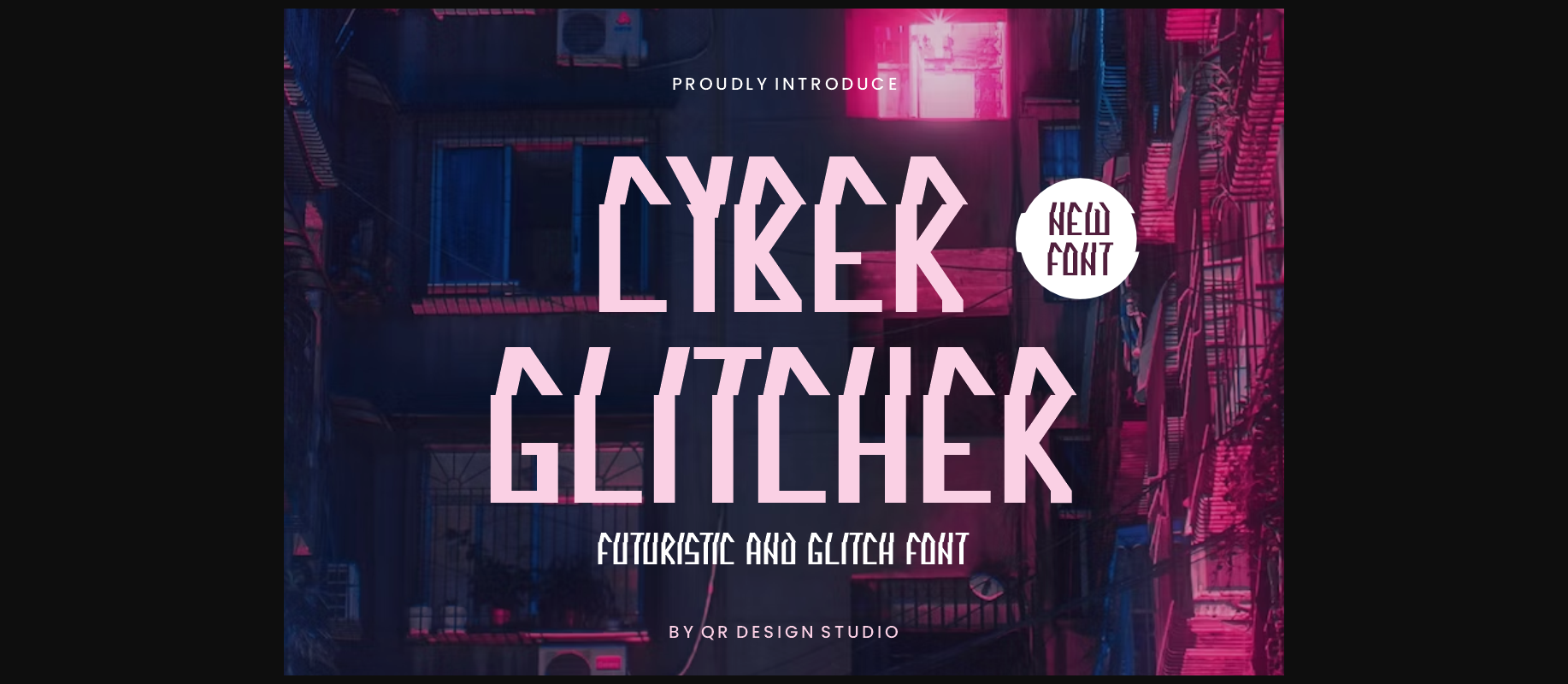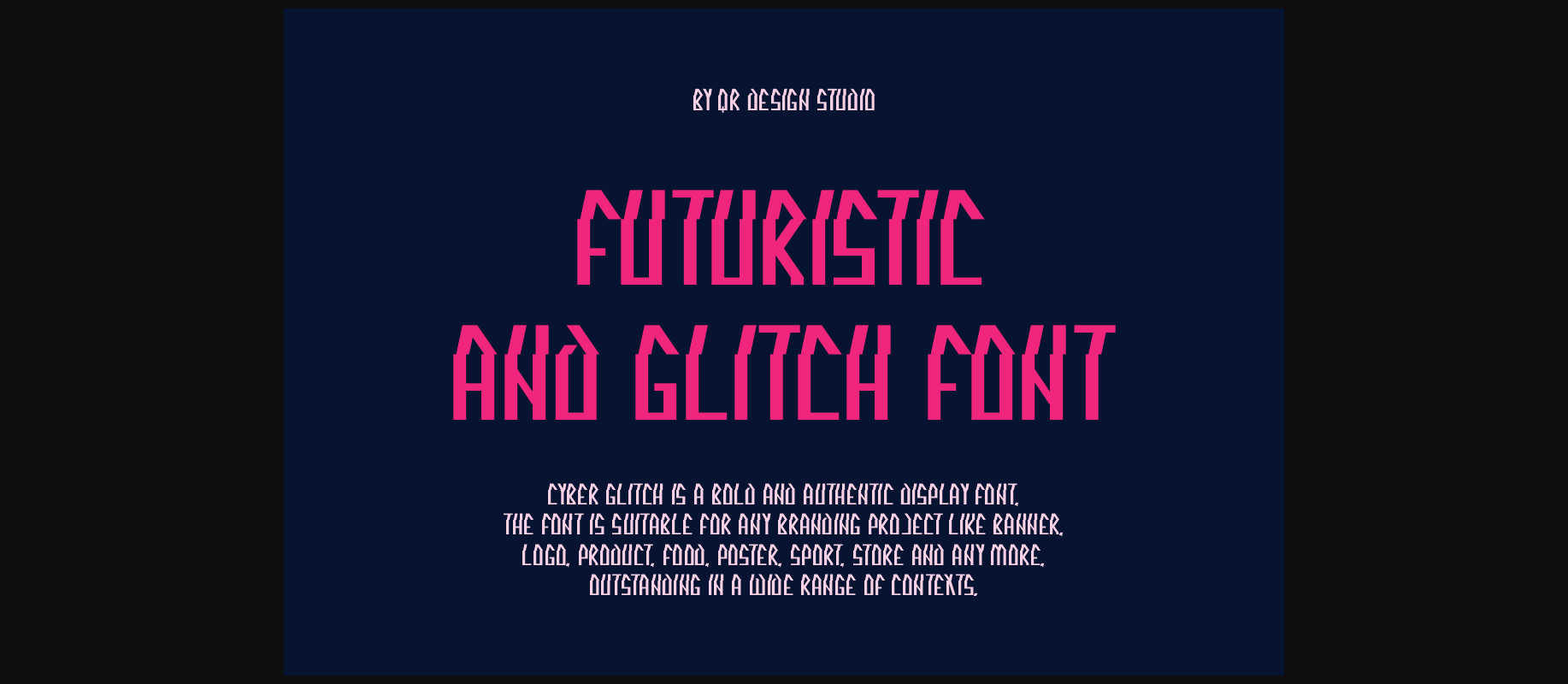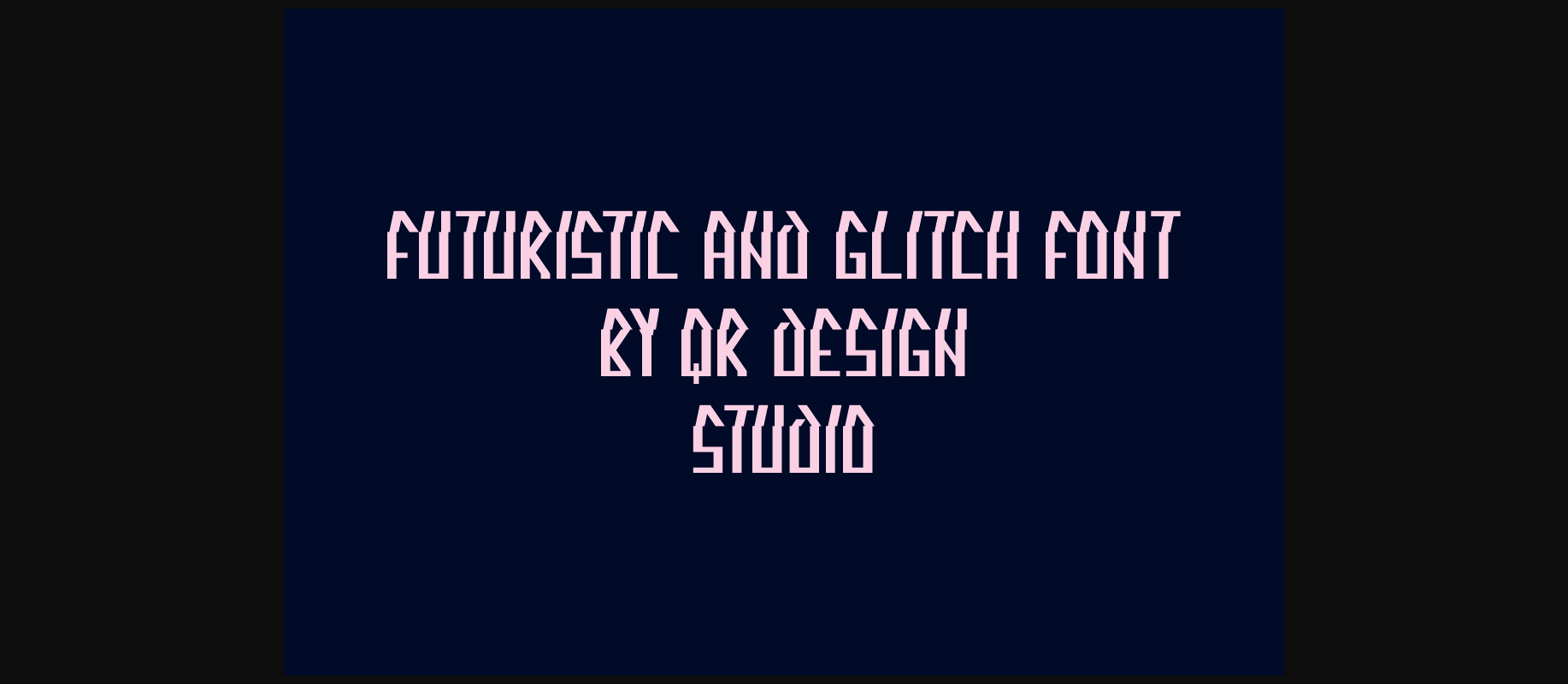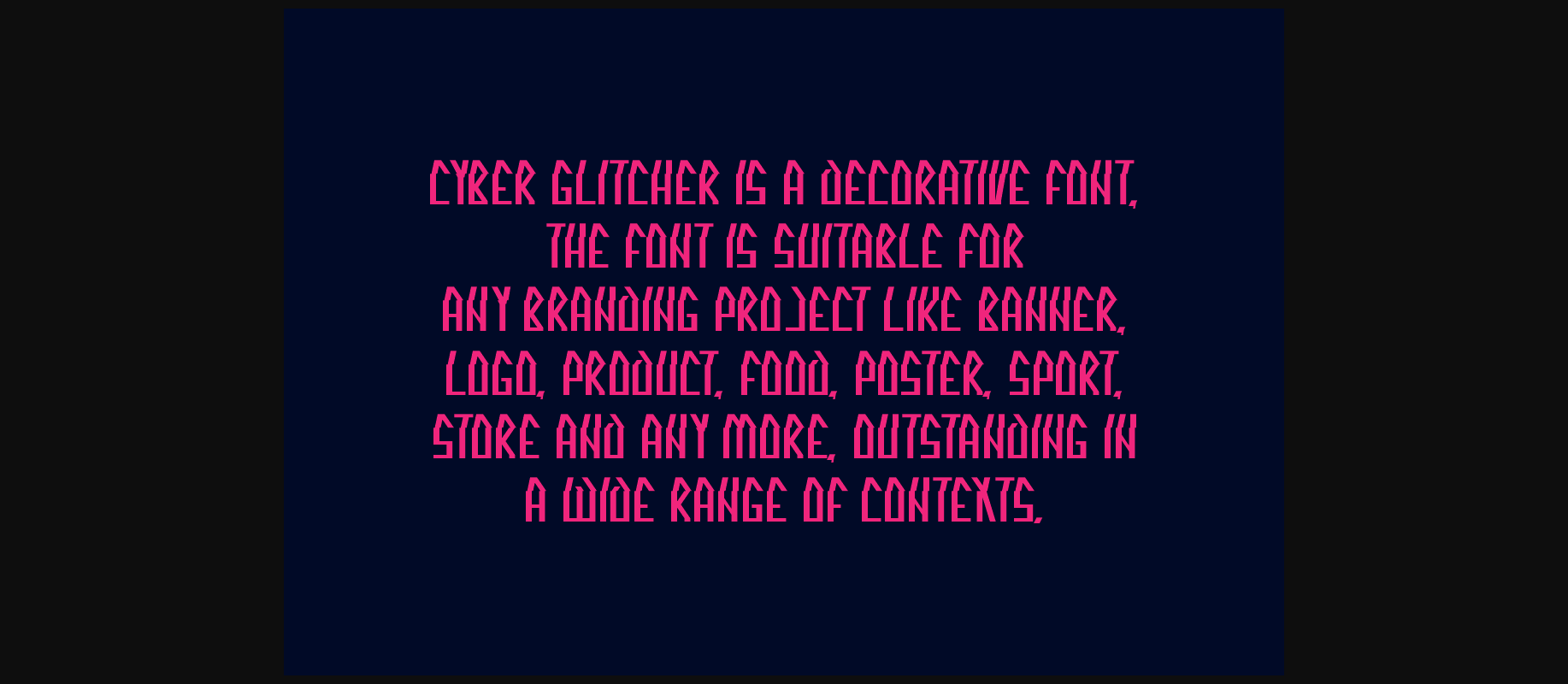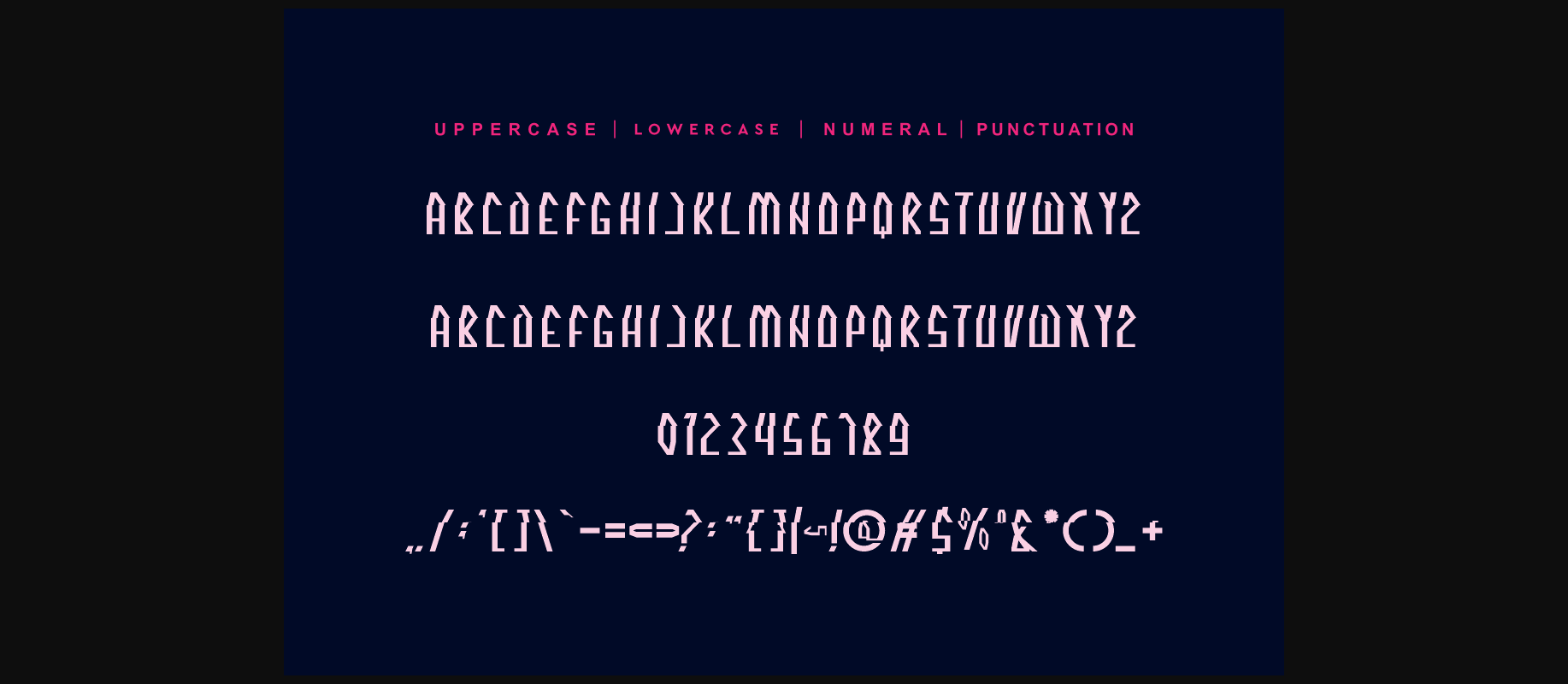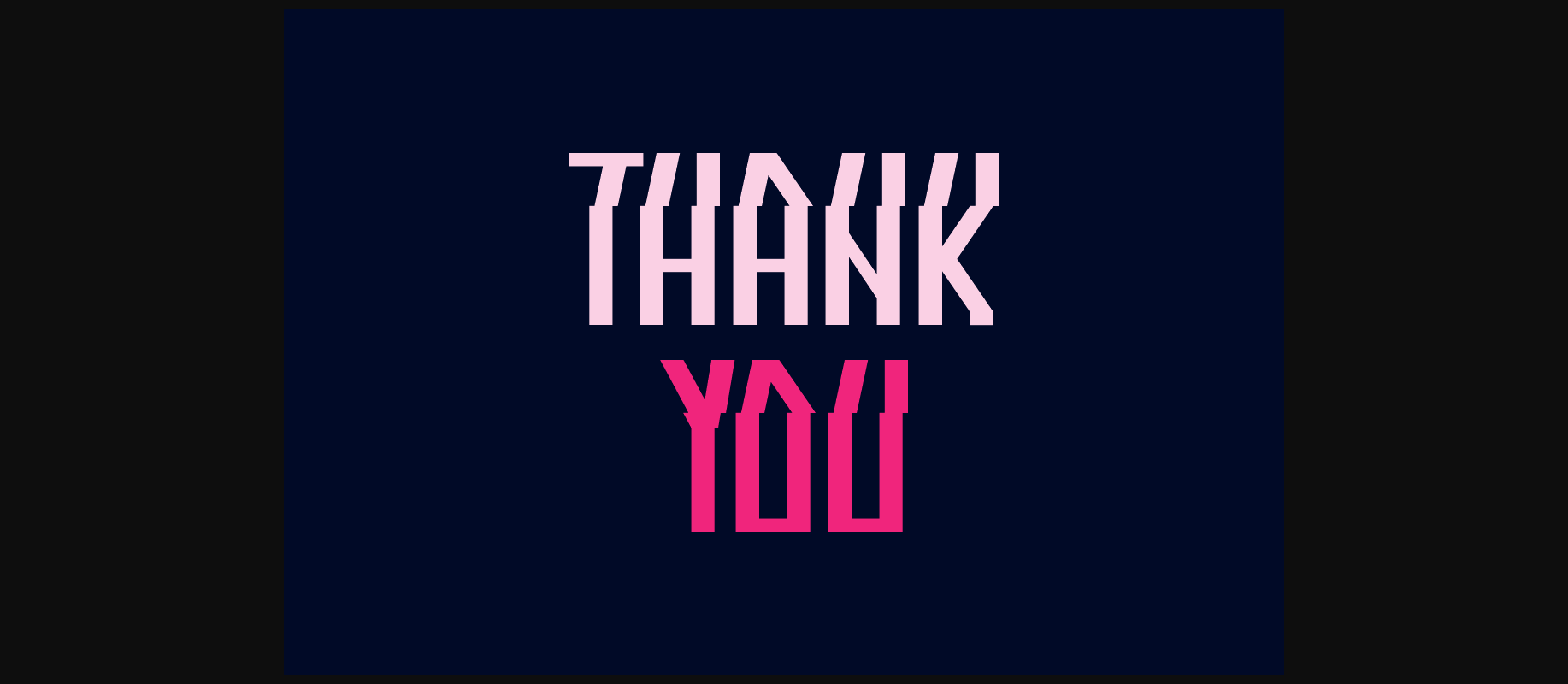
Cyber Glitcher Font
About Cyber Glitcher Font
Cyber Glitcher is an incredibly cool and unique display font. It has a modern yet whimsical style and it will undoubtedly immerse your designs into a magical world.